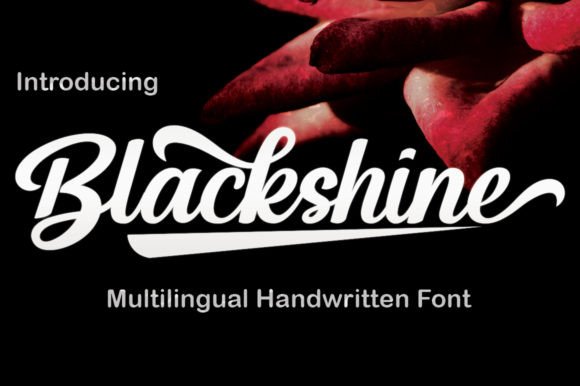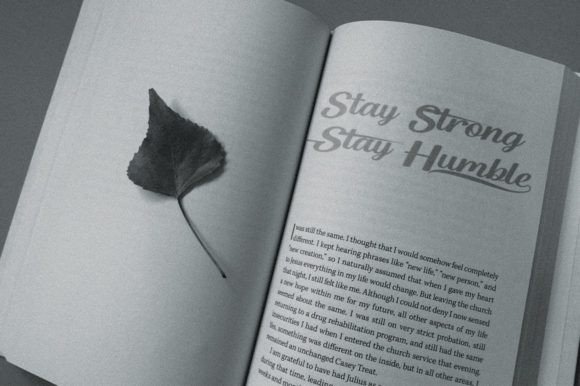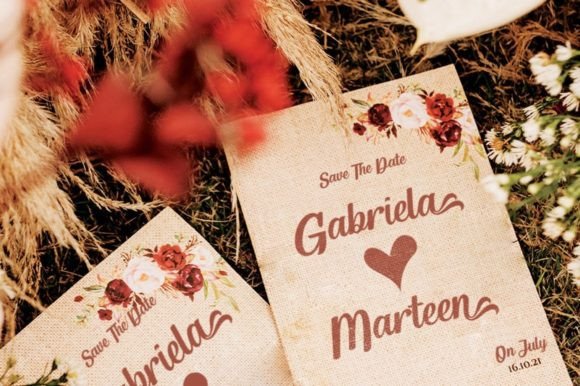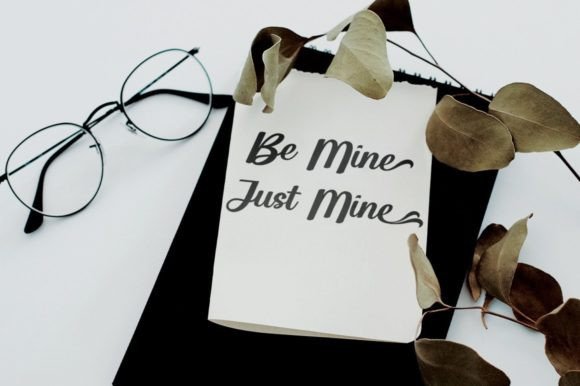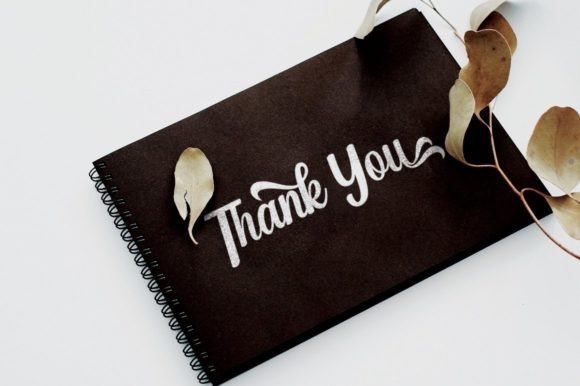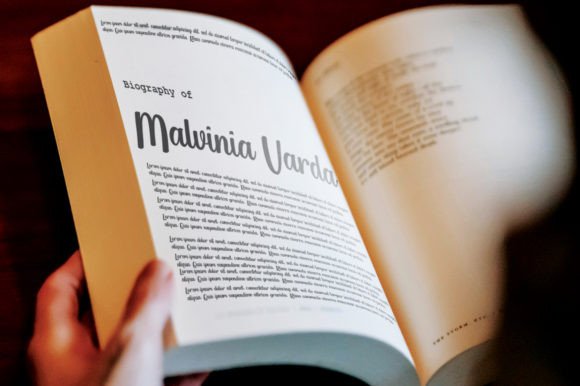
Blackshine Font
About Blackshine Font
“Blackhine” is an elegant script font that exudes a contemporary atmosphere while embodying impeccable form, drawing inspiration from timeless classic calligraphy. Striking a balance between not being too thin and not too thick, this font is meticulously crafted to enhance the beauty of your projects. “Blackhine” is versatile and well-suited for various design needs, including wedding invitations, t-shirt designs, and even social media or web applications.
The elegance of “Blackhine” is evident in its script style, reflecting a harmonious blend of classic calligraphy and modern design sensibilities. The font’s balance in thickness contributes to its readability and makes it suitable for a diverse range of design applications.
This font’s versatility shines through in its adaptability to different design contexts. Whether you’re creating sophisticated wedding invitations that demand an elegant touch or designing engaging visuals for social media and the web, “Blackhine” seamlessly integrates into a variety of projects.
The multilingual support of “Blackhine” ensures that it can be used effectively across different languages and regions, catering to a global audience. This feature enhances the font’s accessibility, making it suitable for projects with diverse language requirements.
In conclusion, “Blackhine” is more than just a font; it’s a design asset crafted to elevate the elegance of your projects. Its contemporary yet timeless aesthetic, coupled with multilingual support, makes it suitable for a broad spectrum of design needs. Whether you’re working on invitations, apparel designs, or digital content, “Blackhine” stands as a font designed to enhance the beauty of your creations with its elegant script and versatile form.